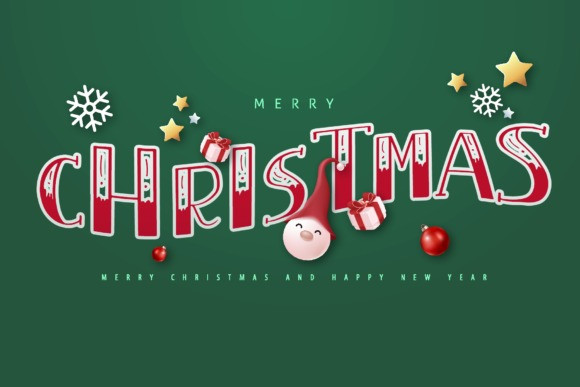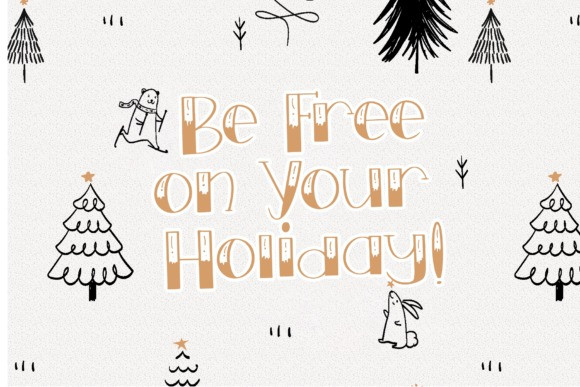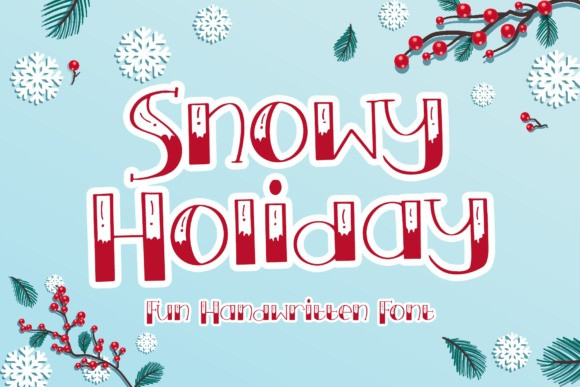
Snowy Holiday Font
Snowy Holiday Font is a cute display font, carefully handcrafted to become a true favorite. It maintains its unique typography influences while feeling contemporary and fresh. This versatility will appeal to a wide range of crafty ideas, from letterheads and titles, to stationery, greeting cards, etc.